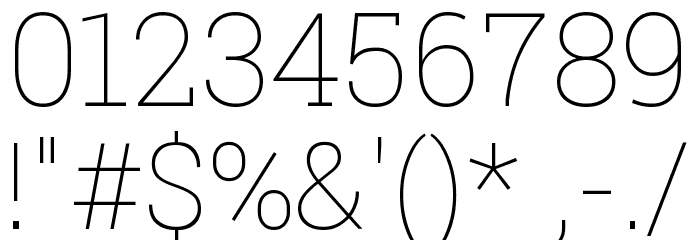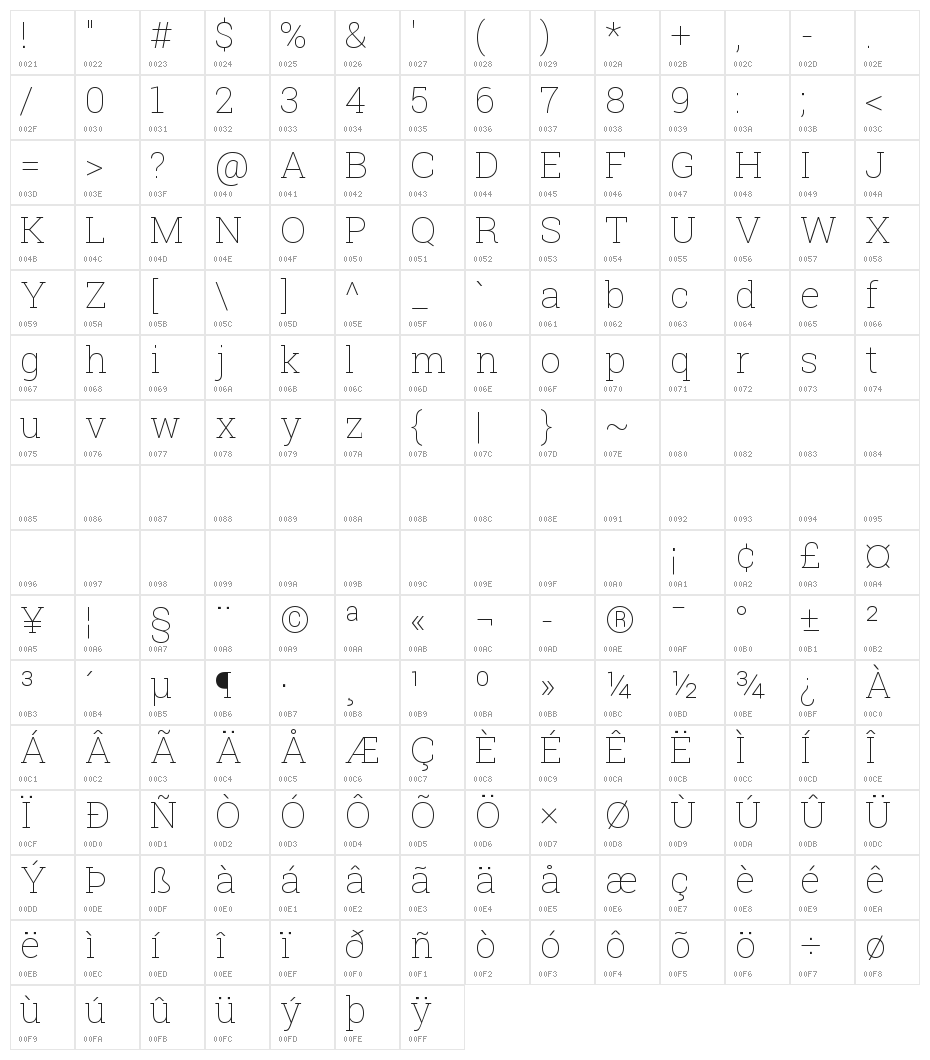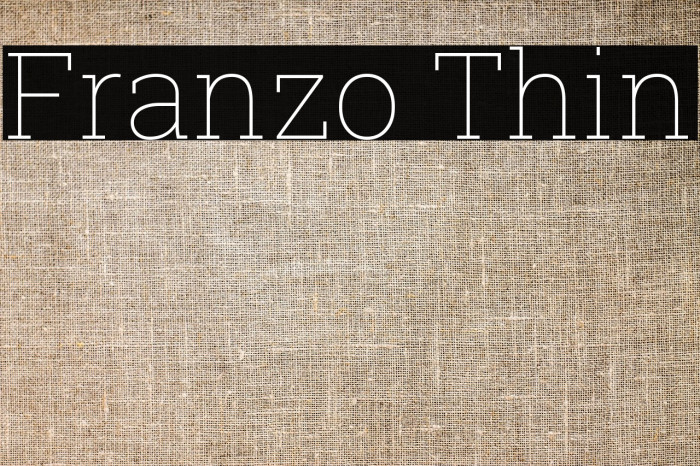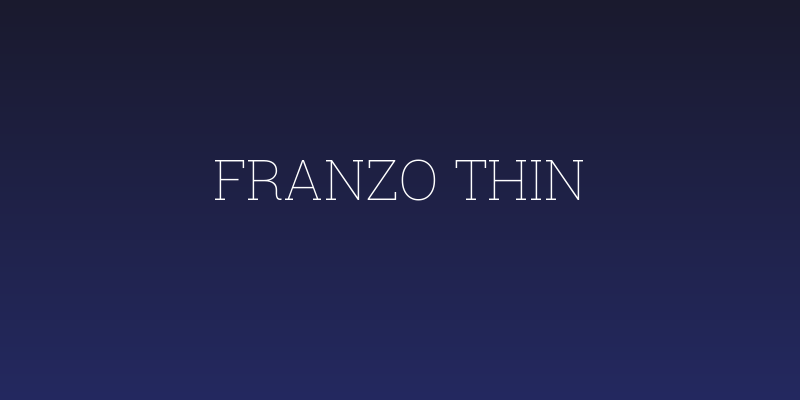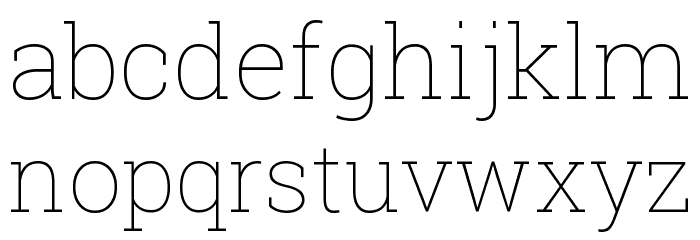
Franzo Thin Font
Franzo Thin Description
This typeface presents a clean and modern aesthetic with its thin, uniform strokes and geometric structure. The characters are well-proportioned, offering a sense of balance and clarity. The uppercase letters are slightly taller than the lowercase, maintaining a consistent line weight throughout. The numerals are clear and legible, matching the style of the alphabetic characters. Special characters are designed with the same attention to detail, ensuring a cohesive look across all glyphs. This font's simplicity and elegance make it versatile for various design applications.